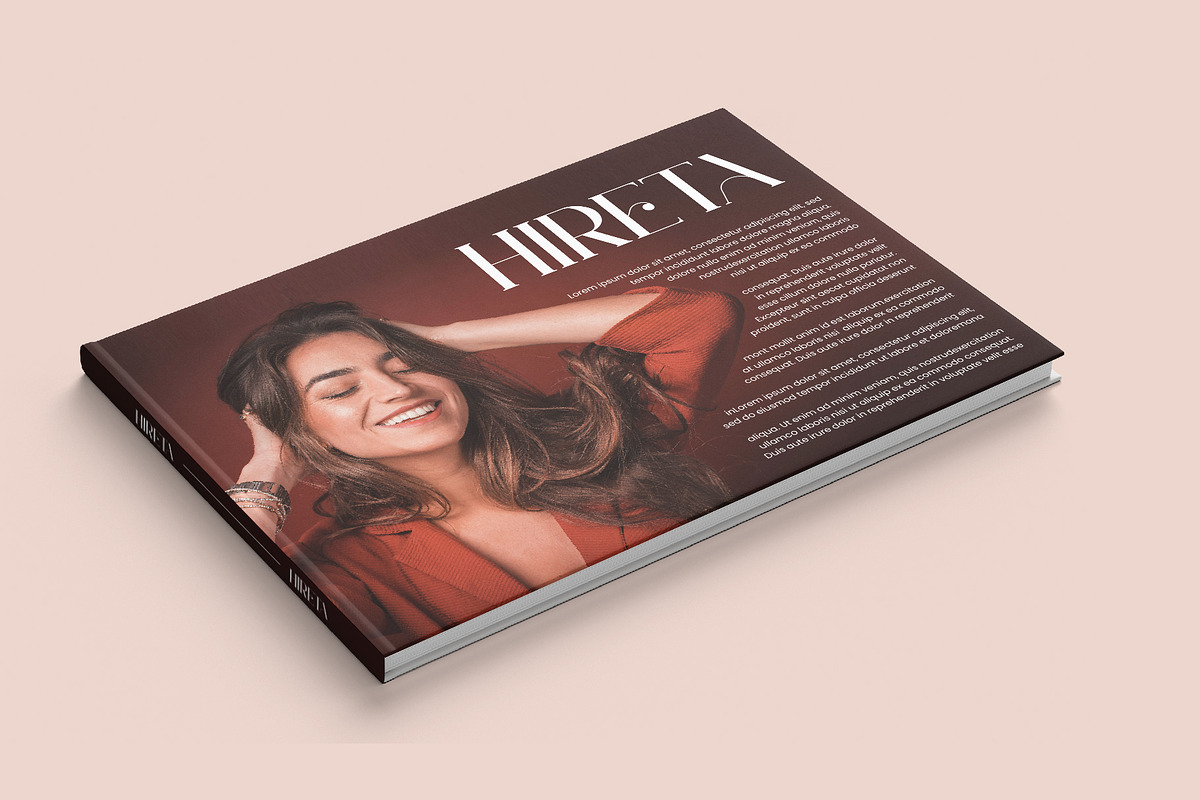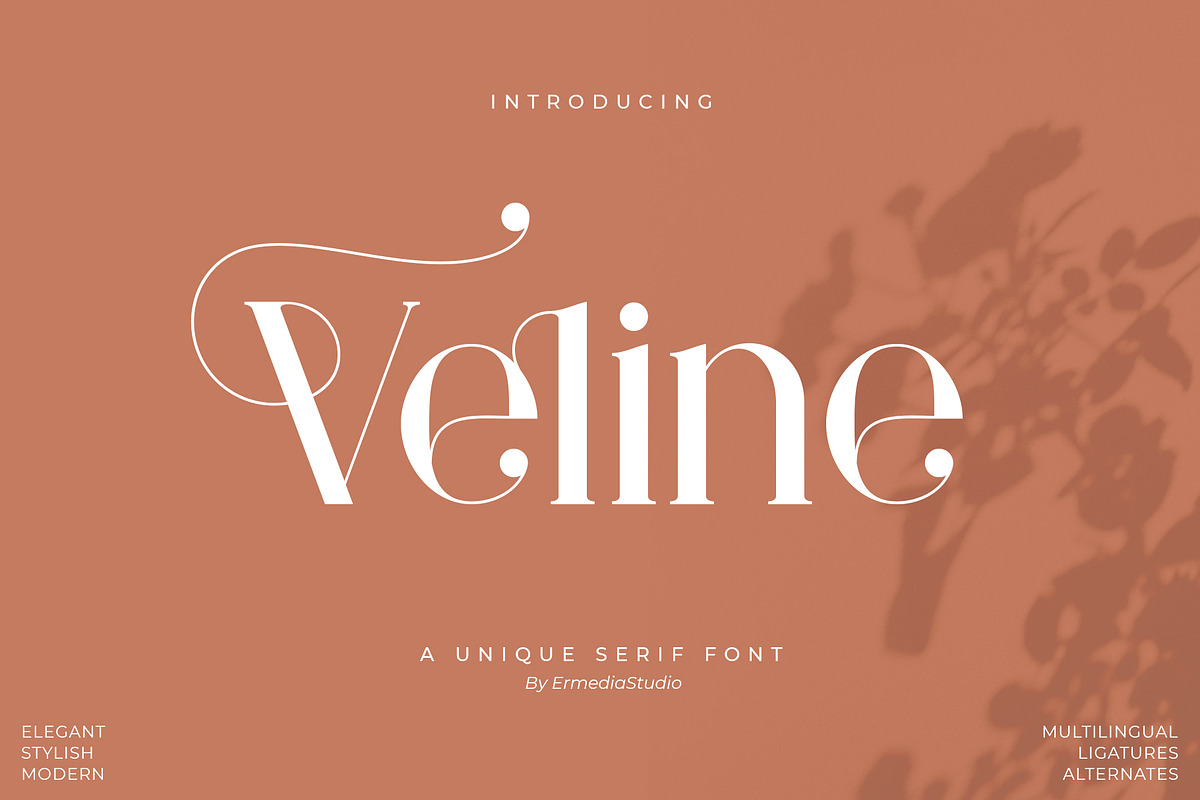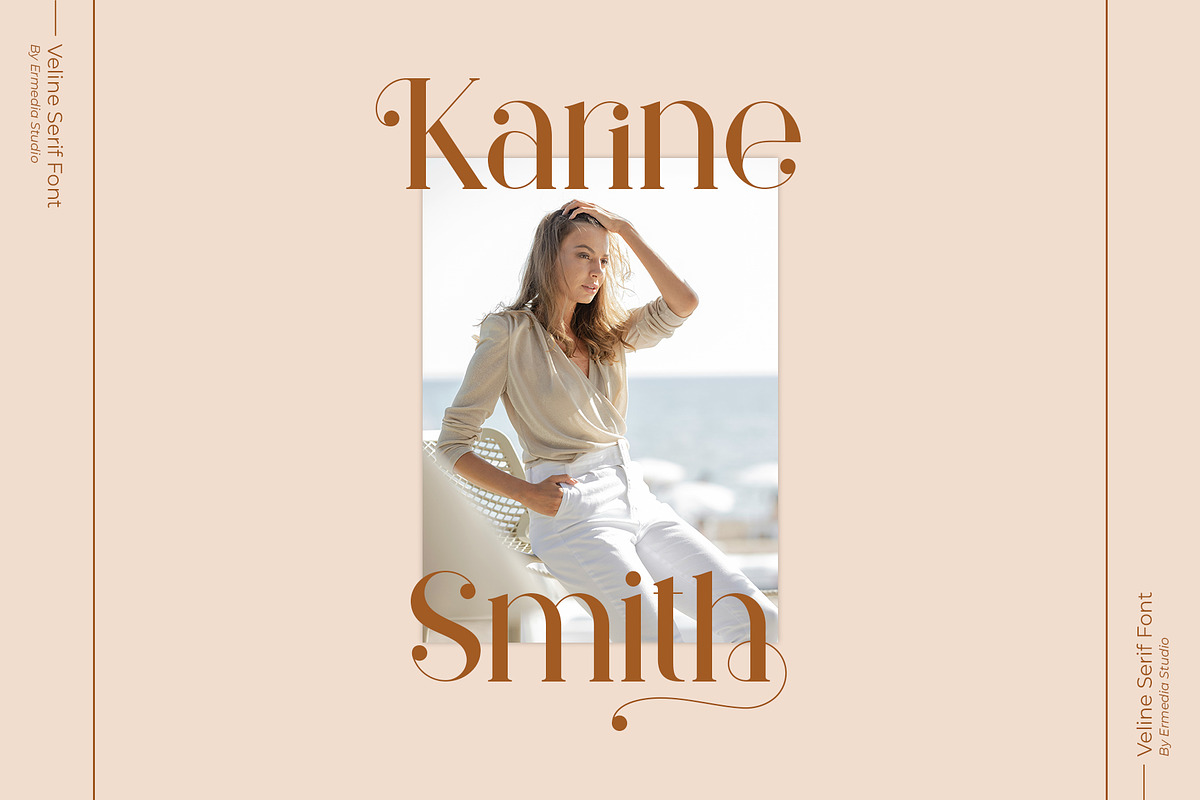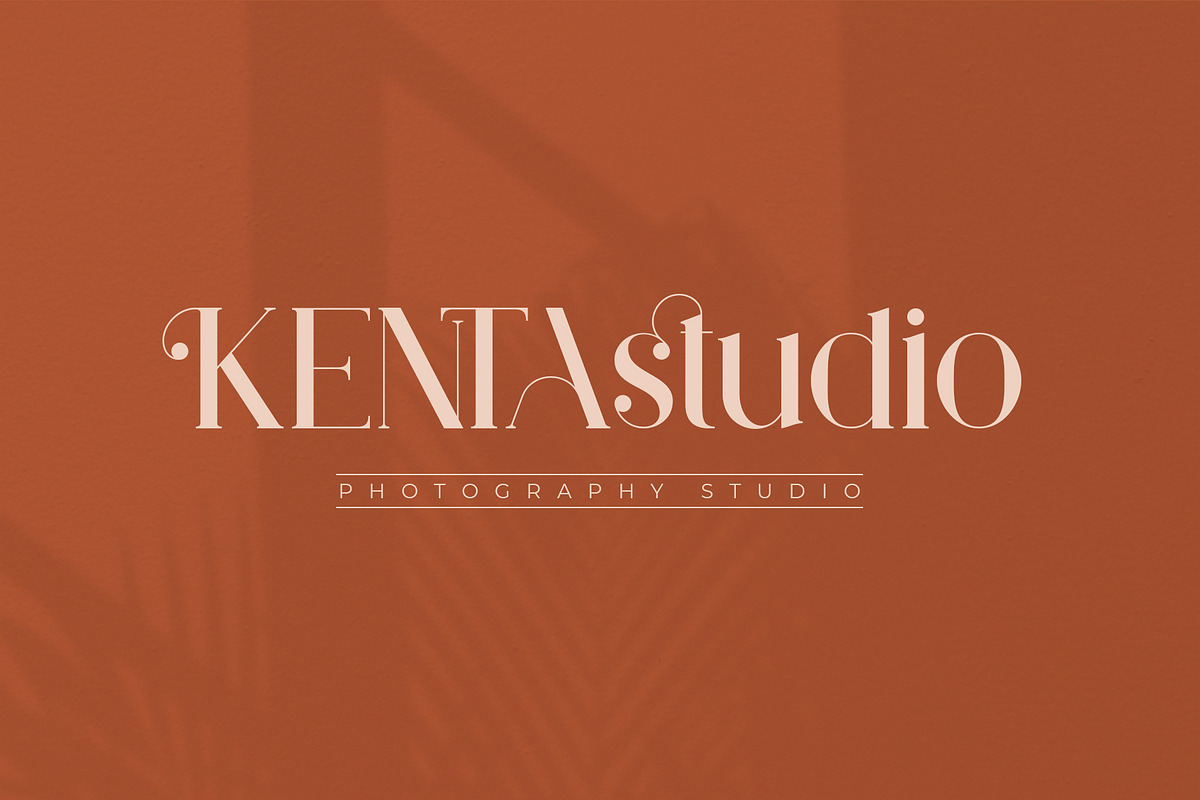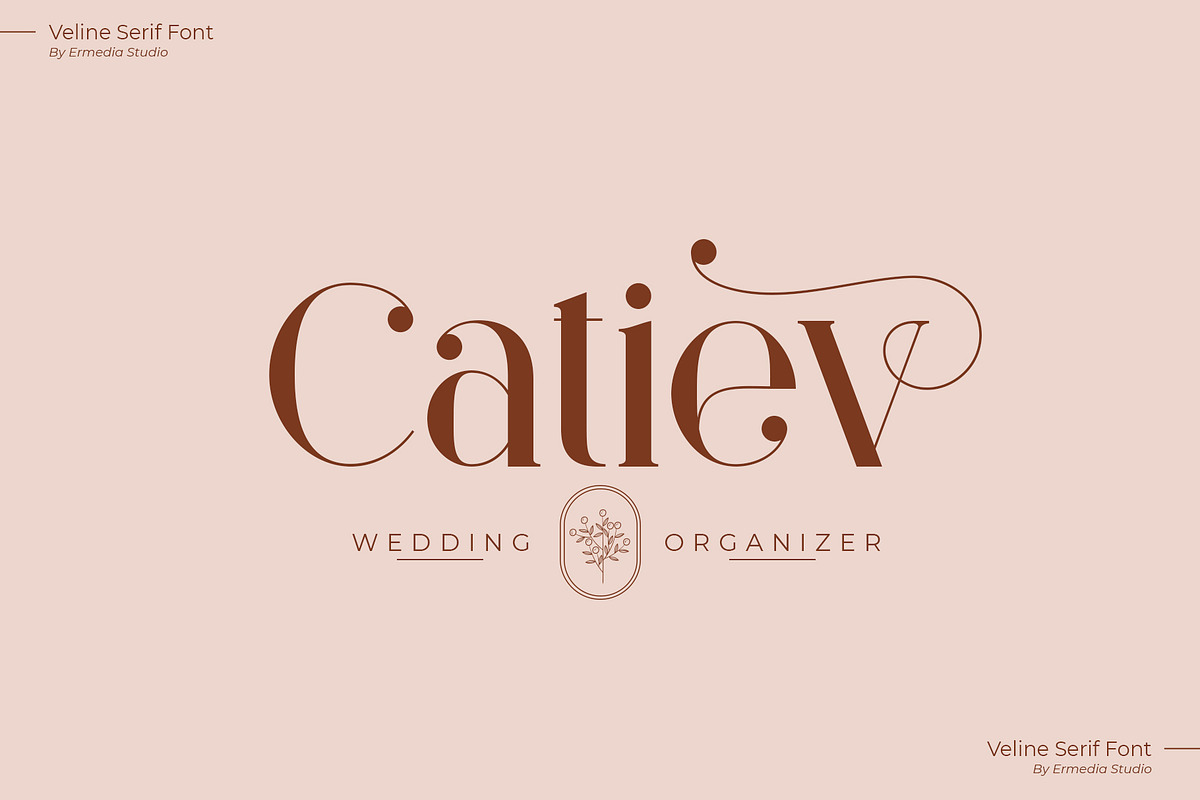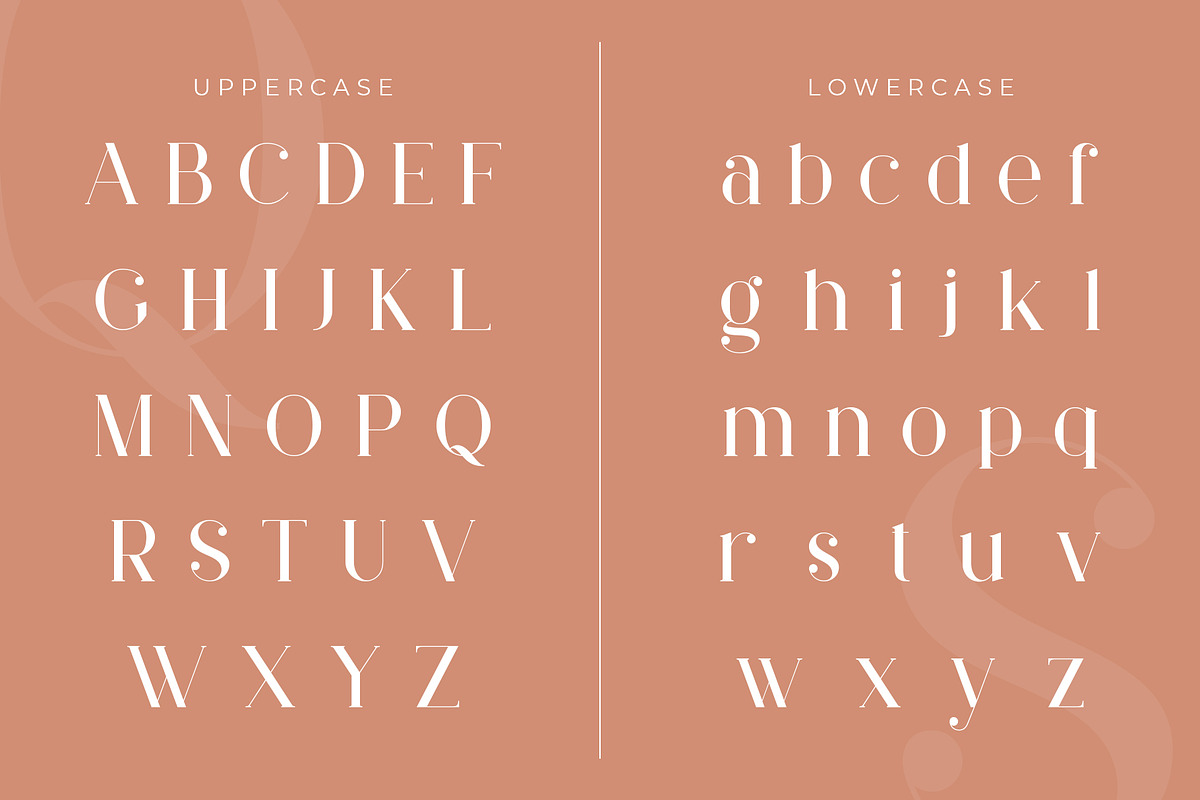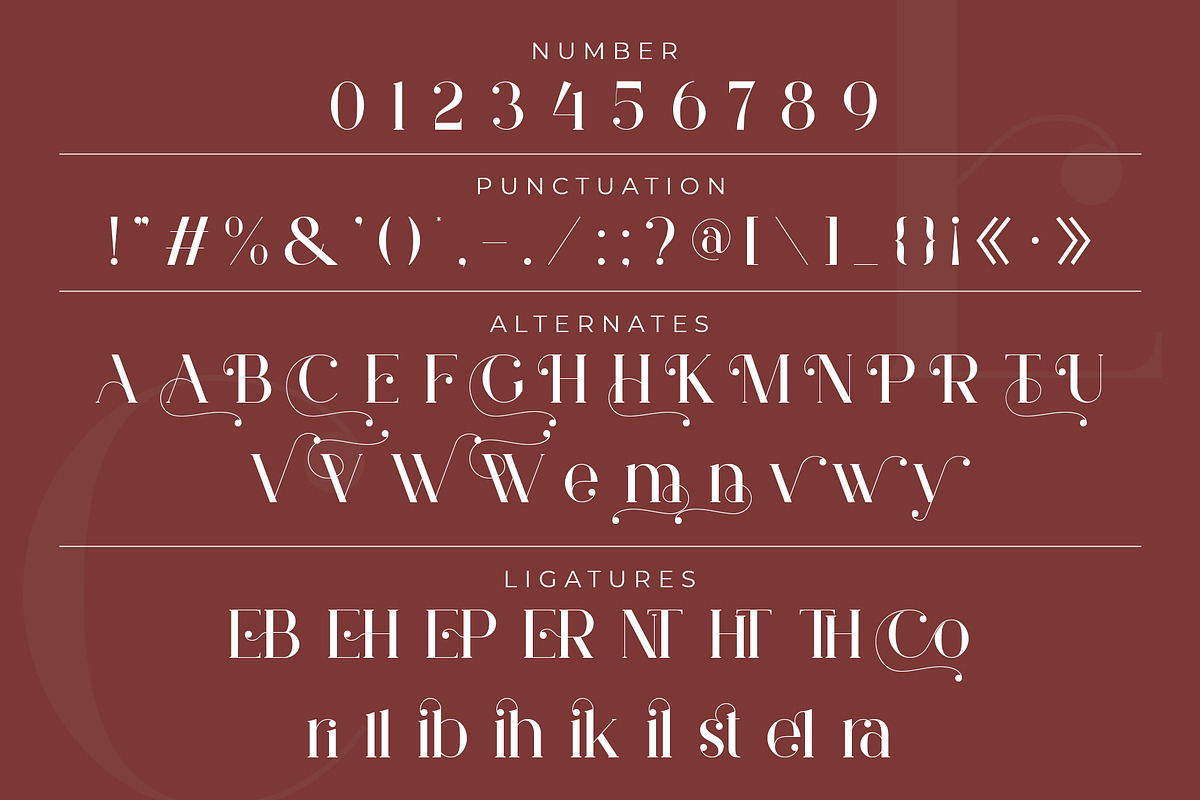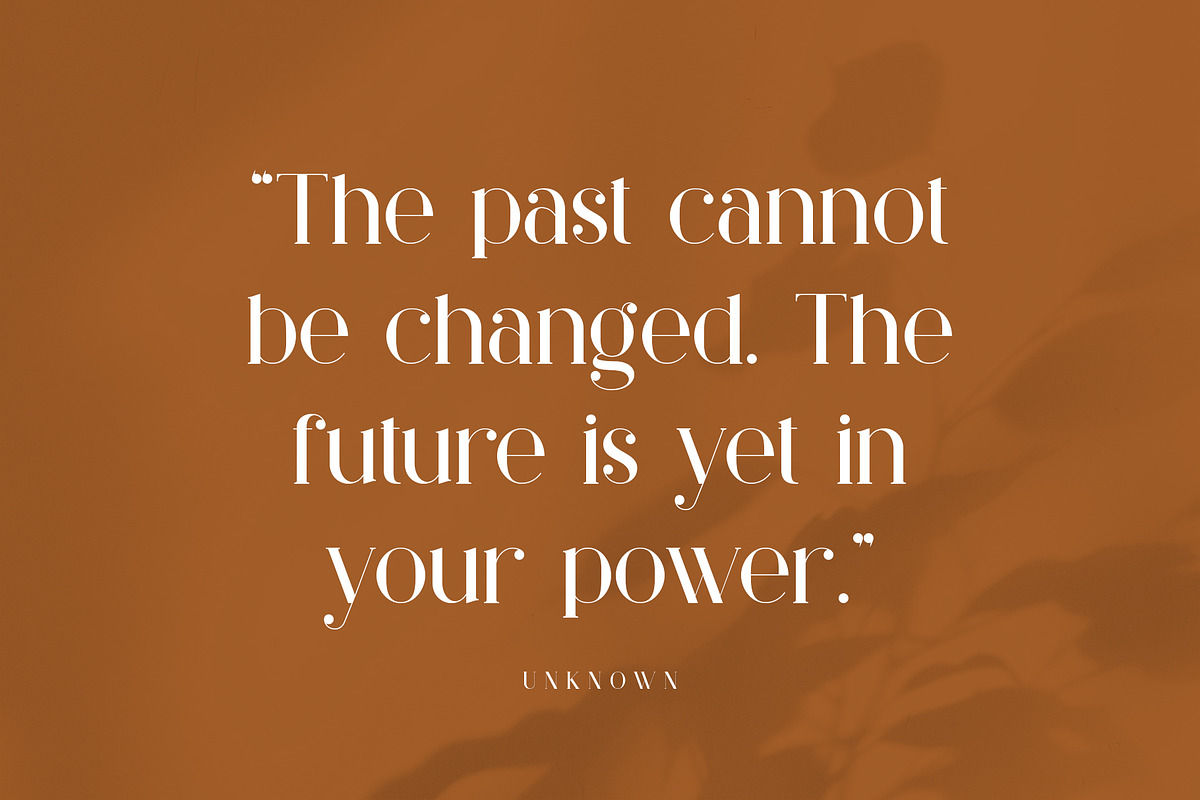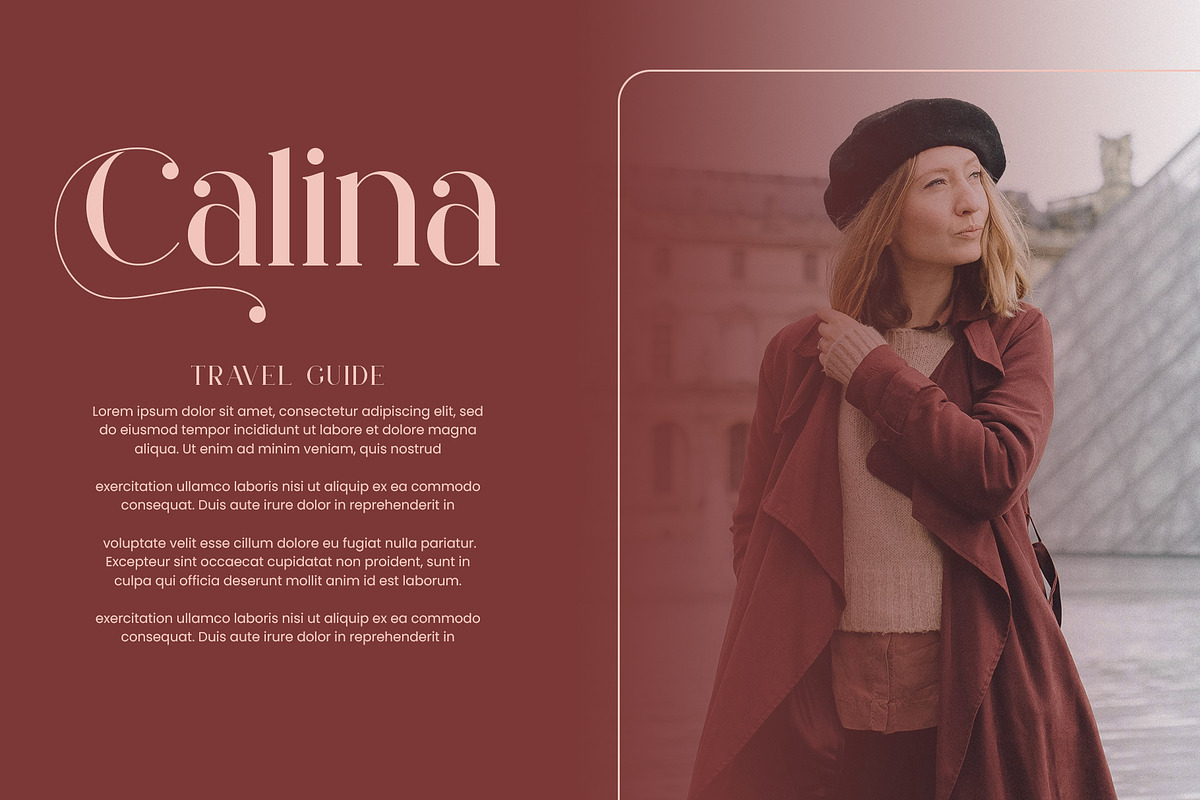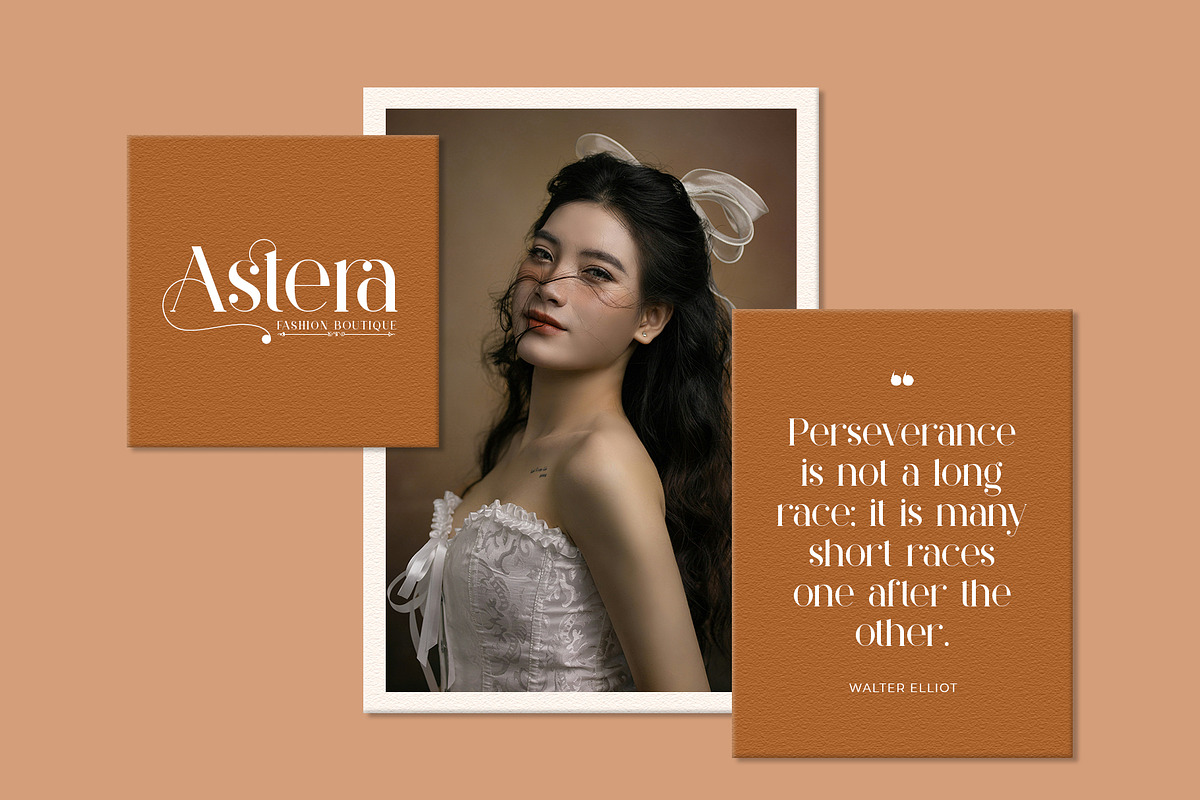
Veline - Serif Font
Introducing Veline Serif Font: is a balanced, smooth, elegant and stylish serif font. He has a beautiful character. It fits perfectly with invitation card designs, company logos, movie titles, movie names, business cards, book titles, brand names and various other designs. Veline Serif is a subtle serif font that exudes sophistication and elegance. Its stylish alternations and ligatures make this font the perfect partner for any project.